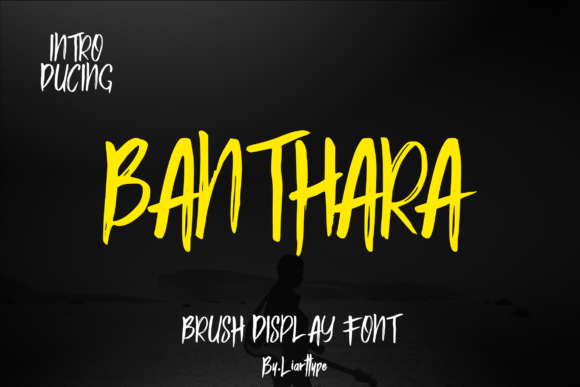
Step into the world of Banthara, the display font that ignites creativity and transforms designs into masterpieces. Born from the brilliant minds at Liarttype, this font is a symphony of elegant strokes and captivating brushwork that dances across your screens, leaving a trail of visual delight. Banthara is more than just a font; it's an artistic expression that breathes life into your designs.
With its inherent charm and expressive nature, Banthara is the perfect choice for those seeking to make a bold statement. Whether you're a seasoned designer or just starting out, this font will elevate your work to new heights. Its versatility knows no bounds, making it an ideal companion for a wide range of projects. From t-shirts and sportswear that exude a sporty vibe to logos that demand attention, Banthara's presence is undeniable.
Dive into the world of fashion and apparel, where Banthara shines as a true star. Create clothing lines that ooze sophistication and style, leaving a lasting impression on your customers. Unleash your creativity and let Banthara be your guiding light as you craft designs that capture the essence of modern fashion.
But Banthara's allure extends beyond the realms of fashion. Its bold and confident strokes make it an exceptional choice for advertisements that demand attention. Billboards, posters, and even social media graphics come alive with Banthara's dynamic presence, ensuring your message cuts through the noise and reaches your target audience.
As you embark on your design journey with Banthara, you'll discover a font that not only enhances your work but also ignites your passion for creativity. Its ability to transform ordinary designs into extraordinary works of art is truly remarkable. Embrace Banthara and let it be the spark that fuels your imagination, propelling you towards design greatness.